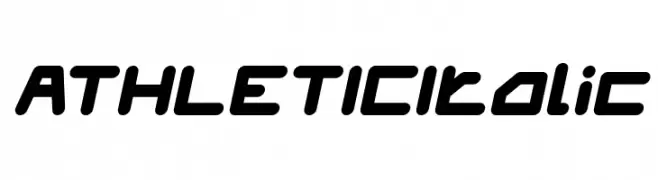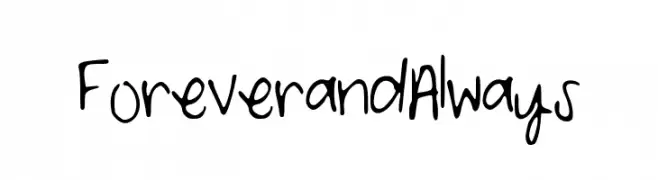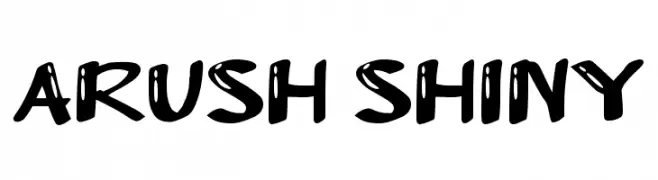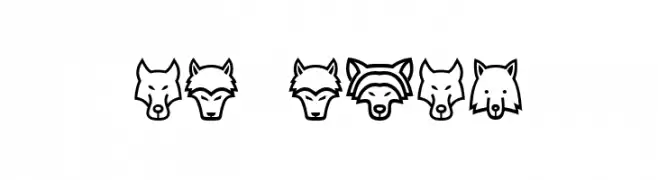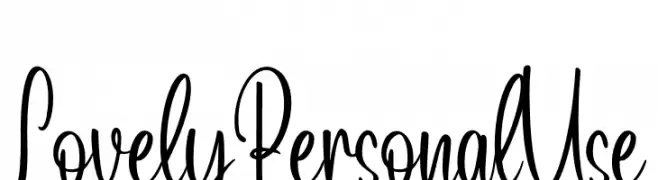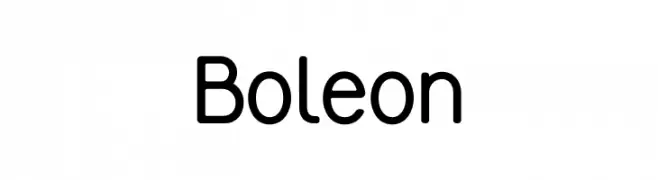
A bold, decorative typeface with whimsical curves and exaggerated serifs.
A bold, italicized font with a sporty and dynamic style.
A bold, dynamic handwritten font with rounded edges and a playful style.
A playful cursive font with fluid strokes and a whimsical, handwritten style.
A bold, decorative font with butterfly motifs in uppercase and numbers.
Animal head icons form each character in a playful, outlined style.
A playful and elegant handwritten font with a modern touch.
A modern, rounded sans-serif font with uniform strokes and high legibility.